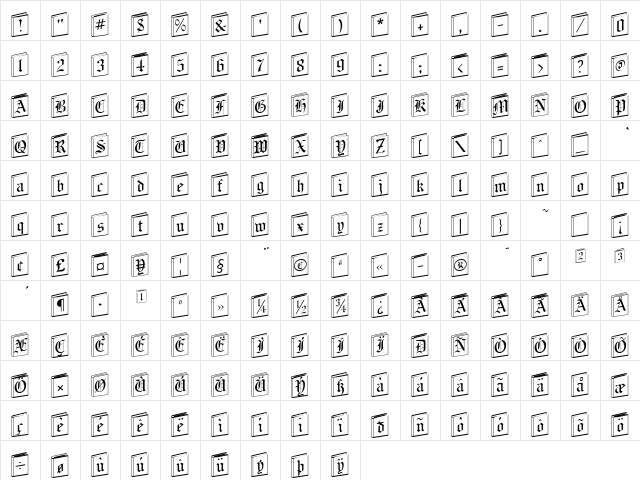
NewLibrary Regular
Design Context for NewLibrary Typeface
NewLibrary is a composed and adaptable typeface that performs quietly and consistently across a wide range of design contexts.